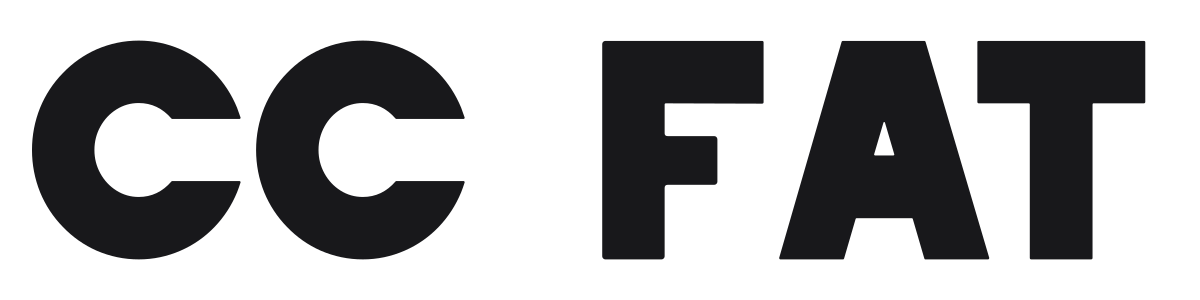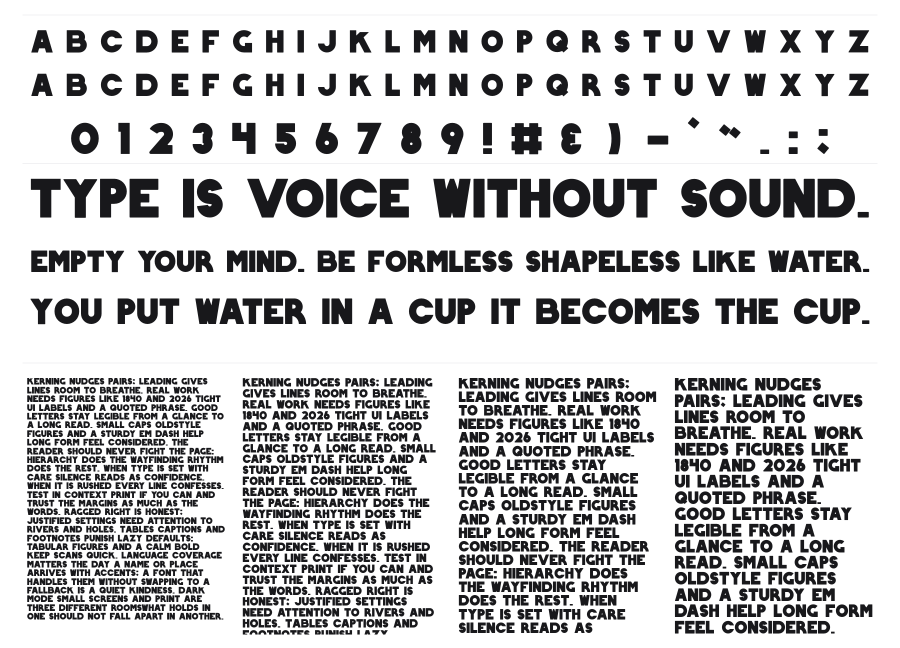
CC Fat
CC Fat is a heavy, chunky sans-serif with rounded interior corners and wide, blocky proportions. It carries a warm retro energy somewhere between 1970s novelty lettering and a comic book title. The sheer weight and softness make it stand out at large sizes without feeling aggressive.